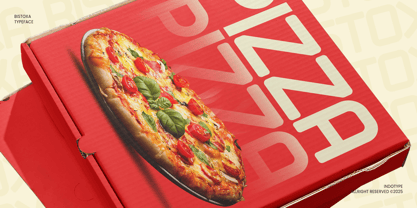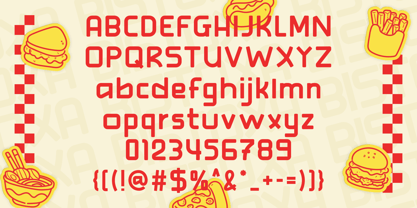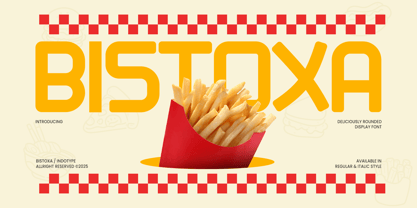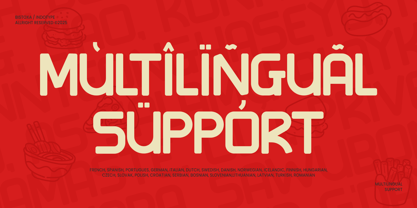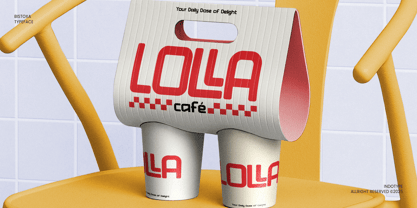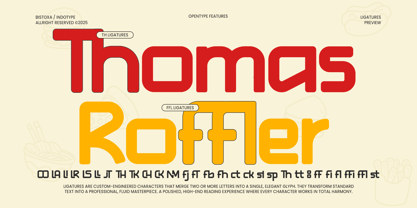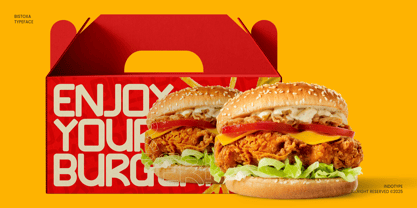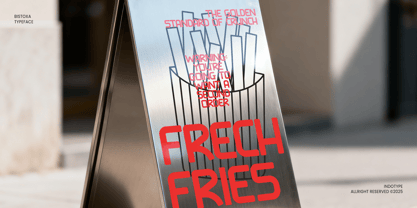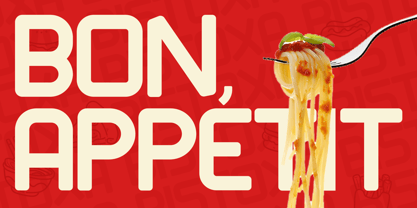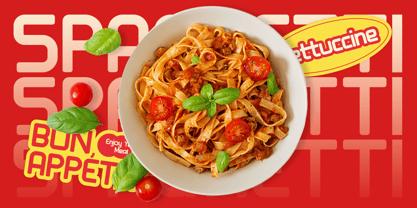
IT Bistoxa
par Indotype
La famille de polices IT Bistoxa a été conçue par Frederik Aristaputra et publiée par Indotype. IT Bistoxa contient 2 styles et options de package familial. En savoir plus sur cette famille
Bistoxa is a charming and irresistibly friendly display font defined by its soft, fully rounded terminals and plump, approachable letterforms. This “deliciously rounded” typeface radiates warmth, positivity, and modern playfulness, making it exceptionally versatile for designs that aim to connect, delight, and engage. Its generous curves and open counters ensure outstanding readability and a welcoming visual tone. Available in both a solid Regular and a subtly dynamic Italic style, Bistoxa brings a touch of joyful character to any project. Perfect for brands targeting families, children, food products, lifestyle content, and tech with a human touch, Bistoxa transforms simple messages into inviting visual experiences. It’s the typographic equivalent of a smile—simple, effective, and universally appealing. • Ideal for: Family & Kids Brands, Food & Beverage Packaging, Lifestyle Blogging, App UI for Wellness, Friendly Logos, Social Media Graphics. • Classification: Sans-Serif, Display, Rounded, Geometric. • Attributes: Friendly, Playful, Warm, Modern, Approachable, Soft, Inviting.